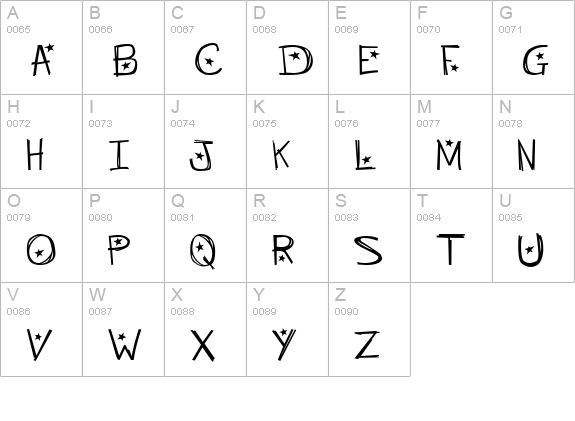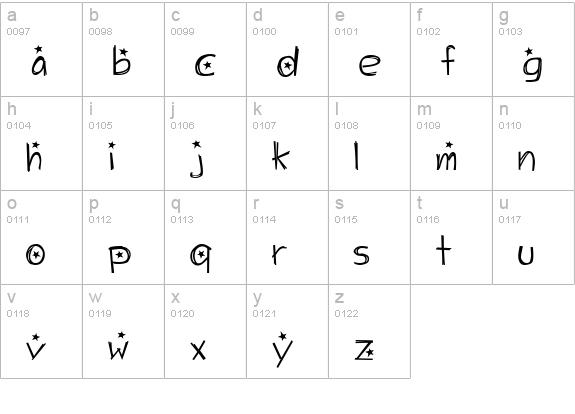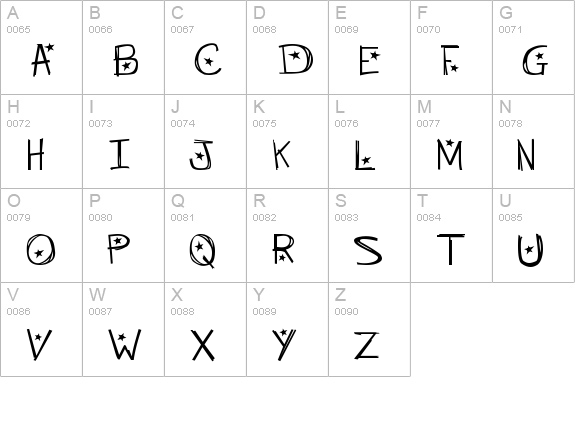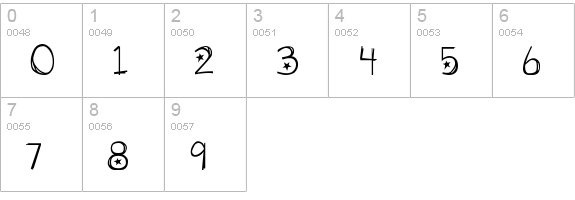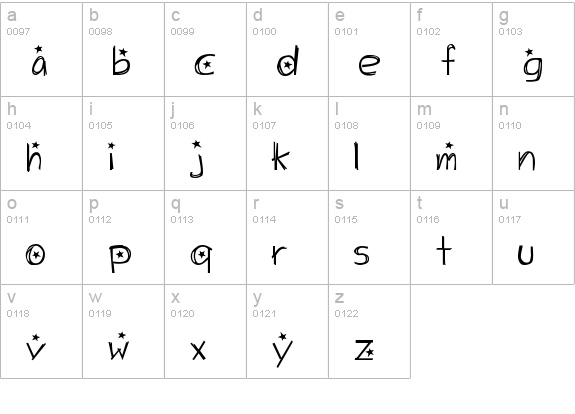
Starry Night Font Details
Introducing Starry Night, a captivating and enchanting font that will transport you into a world of cosmic beauty and celestial wonder. With its graceful curves and delicate strokes, this font effortlessly captures the essence of a starry night sky, evoking feelings of tranquility and awe. Starry Night is not only visually stunning, but it also offers a delightful user experience. Its smooth lines and balanced proportions make it easy to read and a pleasure to work with in various design projects. Whether you're creating invitations, logos, posters, or any other creative endeavor, Starry Night will add a touch of elegance and sophistication to your work. What makes Starry Night even more remarkable is that it is free! Yes, you read that right. This extraordinary font is freely available to download exclusively at FontsMarket.com. We believe that creativity should be accessible to all, and by offering Starry Night for free, we hope to inspire and empower designers, artists, and enthusiasts alike to bring their visions to life. Downloading Starry Night is a breeze. Simply visit FontsMarket.com, navigate to the font's page, and click the download button. Within seconds, you'll have this stunning font at your fingertips, ready to unleash your imagination and create something truly extraordinary. So why wait? Embrace the beauty of the night sky with Starry Night font. Download it for free today and let your creativity soar to new heights.